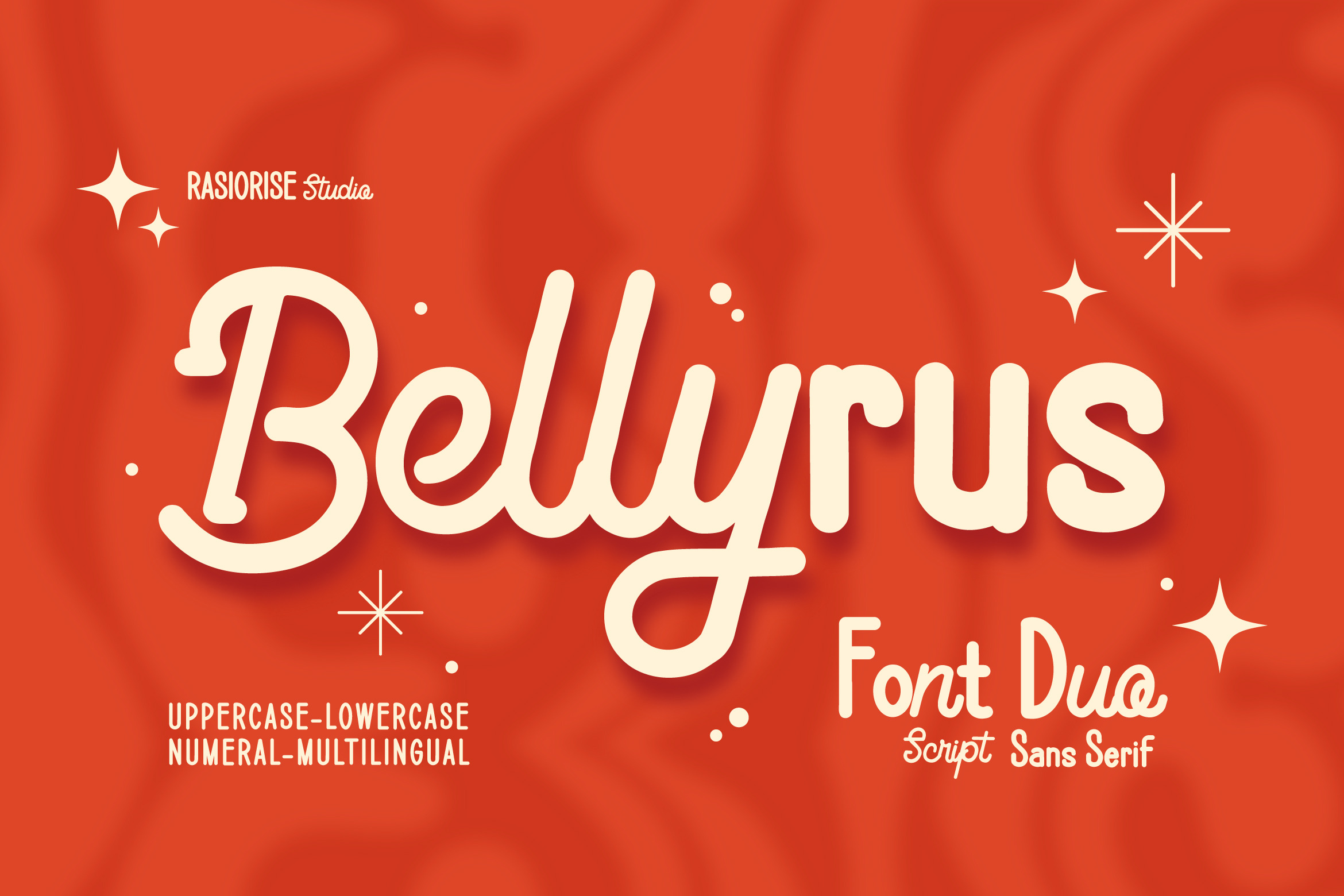
Bellyrus Font Duo
Hello Everyone! Bellyrus Font has been released for those of you who are looking for a Font Duo, a Handwritten Font that combines the Christmas Vibes of a modern Script with a Bold and Rounded Sans-Serif typeface. This font is inspired by the Christmas and Winter, a Handdrawn Script font with several combinations to combine Pop and Playful styles like a Holiday vibes. With easy-to-read character font for your Christmas vibes and Holiday season, also you can easily create beautiful and stand-out typography. Unleash your creativity with Bellyrus and let your Chirstmas and Holiday season projects!.
Bellyrus is perfect for Chirstmas vibes, Holiday vibes, Winter season, Logotype, Book Cover, Gift Cards, Greeting Cards, Posters, Merchandise, Packaging Labels, and more.